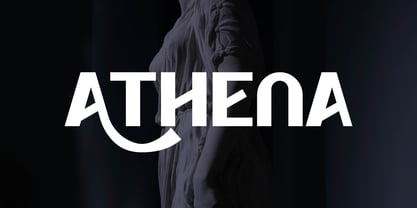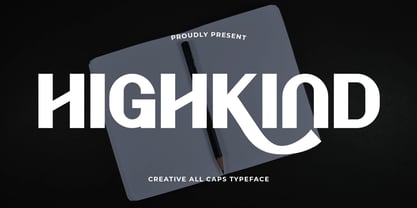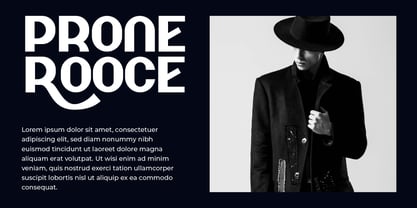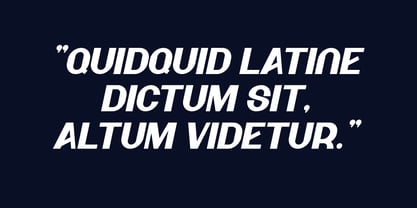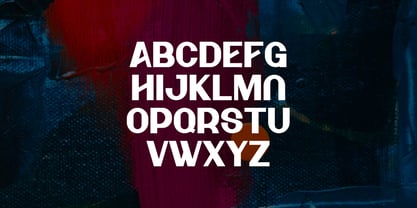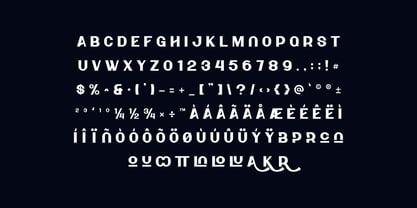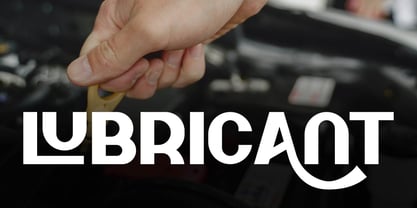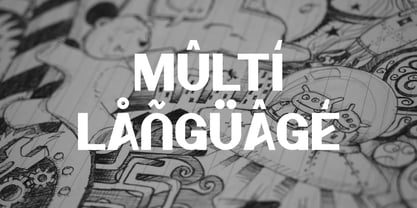
Highkind
by Artiveko
The Highkind Font Family was designed by Iwan Alwan and published by Artiveko. Highkind contains 2 styles and family package options.
Highkind is a creative display sans serif font crafted for bold expression and visual impact. With strong geometric shapes, playful proportions, and eye-catching letterforms, Highkind stands at the intersection of modern design and artistic flair. It’s made to break the monotony — perfect for headlines, posters, packaging, album covers, branding, and any project that demands attention.
This font is not just about style — it’s about personality. Each character carries a unique rhythm, giving your text a confident, creative tone without sacrificing clarity. Highkind includes a full set of uppercase and lowercase characters, multilingual support, and dynamic alternates and ligatures that let your creativity flow. Whether you’re designing for a trendy fashion label, a music festival, or a fresh startup, Highkind adds that spark of originality your project needs. Be bold. Be modern. Be Highkind.